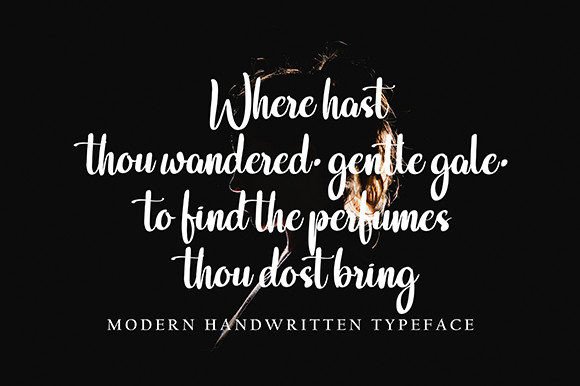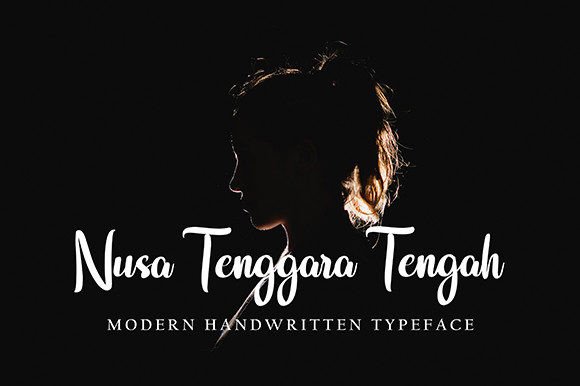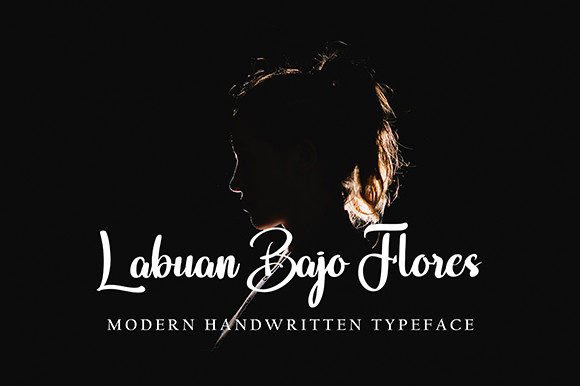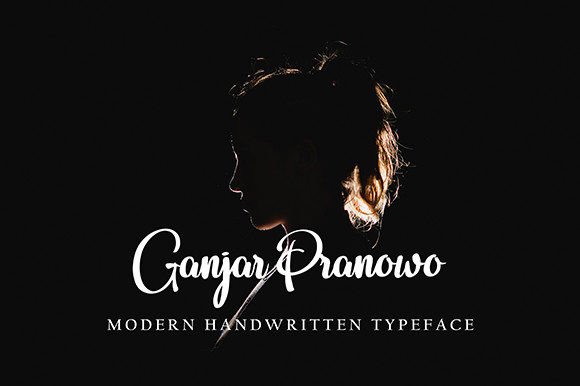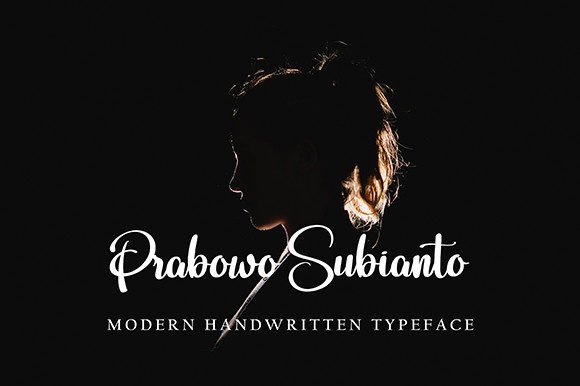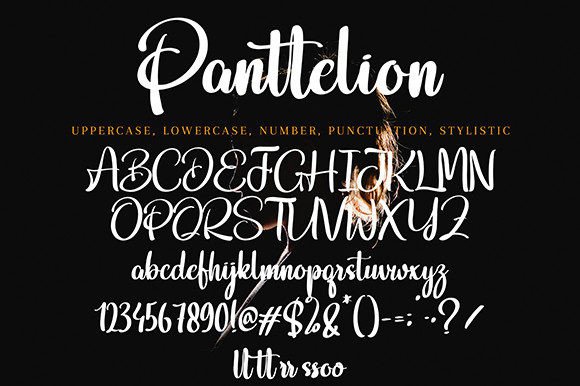
Introduction to Panttelion Font
As designers, we’ve all been there – staring at a blank canvas, struggling to find the perfect font to bring our creative vision to life. The right font can make or break a project, and when it comes to conveying a personal touch, a handwritten script is often the way to go. That’s where the Panttelion Font comes in – a modern, high-quality design resource that adds a touch of elegance to any project.
With its natural, stylish feel, the Panttelion Font is perfect for designers looking to add a customized touch to their work. Whether it’s a wedding invitation, a thank you card, or a logo, this versatile font is sure to make your design stand out. And the best part? It’s free to download, making it an invaluable resource for any creative project.
So, what sets the Panttelion Font apart from other design resources? Its high-quality, transparent background makes it perfect for use on a variety of design elements, from business cards to greeting cards. With the Panttelion Font, you’ll have the creative freedom to bring your vision to life – and with a little practice, you’ll be creating stunning designs in no time.
Key Features of Panttelion Font
- High-quality design resource ideal for creative projects, including logos, graphics, and typography.
- Features a transparent background, allowing for easy customization and integration with other design elements.
- Available in a single size, with a resolution of 1024×1024 pixels, ensuring crisp and clear typography.
- Unique characteristics include a modern and sleek aesthetic, with a mix of geometric and organic shapes.
- Perfect for designers and artists looking for a high-quality, versatile font that can elevate their creative project.
Honest Review: Panttelion Font
I recently had the chance to work with the Panttelion Font, and I must say it’s been a game-changer for my creative projects. As a designer, I’m always on the lookout for high-quality design resources that can elevate my work, and this font definitely delivers.
What works well is the font’s versatility. It’s perfect for projects that require a unique, modern touch. The Panttelion Font is highly legible and comes in a variety of styles, making it easy to use in different contexts. I’ve used it for logos, signage, and even digital interfaces, and it always looks great.
Here are some of the features that make this font stand out:
- High-quality design with transparent background for seamless integration
- Perfect for creative projects that require a modern, stylish touch
- Not suitable for projects that require a more traditional or serif font style
Overall, I’m thoroughly impressed with the Panttelion Font. It’s a valuable addition to any designer’s toolkit, and I highly recommend it for any creative project that requires a unique, modern touch.
Tips for Getting the Most Out of Panttelion Font
For the best results, use the Panttelion Font with a transparent background to give your design a clean and modern look. Experiment with different font sizes, colors, and combinations to find the perfect fit for your creative project.